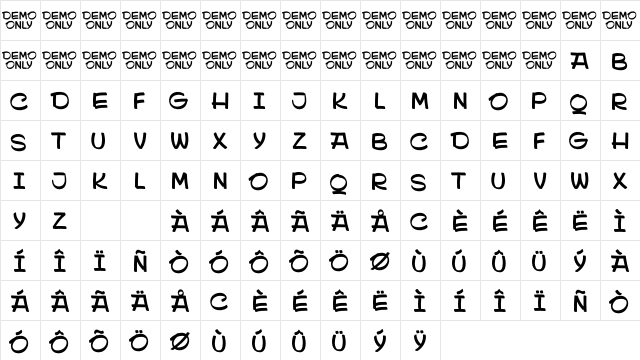
Sidestroke DEMO
Design Context for Sidestroke Typeface
Sidestroke is a composed and adaptable typeface that performs quietly and consistently across a wide range of design contexts.